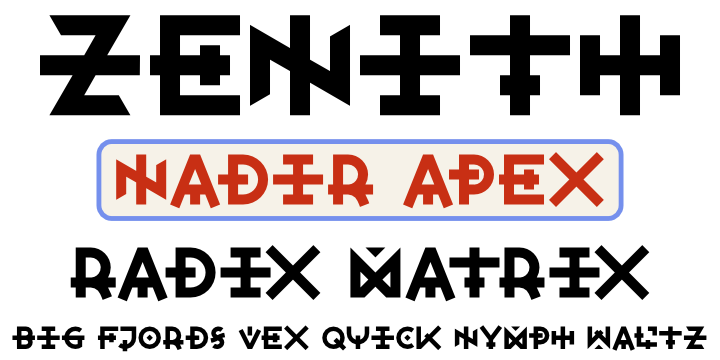
• Zenith™
Chinese characters have simplifed and more complex, “traditional” variants.
Zenith imagines what an un-simplified, traditional version of the Latin alphabet might have looked like.